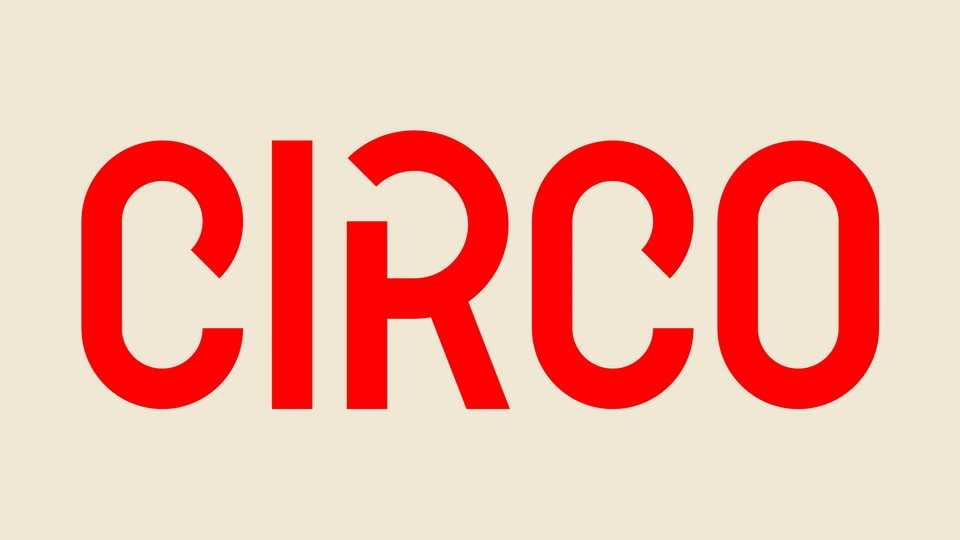
Download Circo font, a playful and vibrant typeface that that takes inspiration from circular forms and exudes a delightful retro vibe. The circular forms create a sense of harmony and fun, contributing to the font’s overall playful and geometric appeal.
Designer: Julien De Meyère